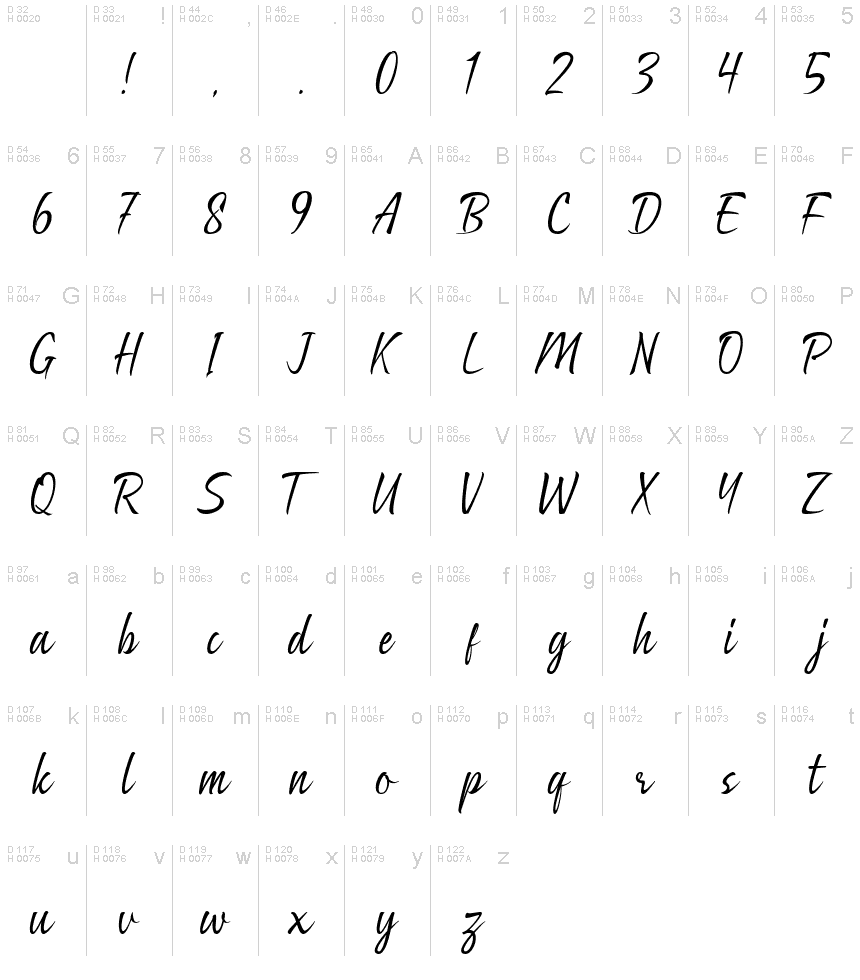
Dalih
Say hello to Dalih, the handwritten semi-light font that's perfect for your creative projects. Designed by Mytype Studio, this semi-condensed typeface exudes elegance and simplicity. The slim letters of Dalih lend themselves well to various design projects - from minimalist invitations and greeting cards to modern website headers and logos. Its subtle curves and smooth lines give it a refined charm that is sure to elevate any project you use it in. Whether you're a calligrapher, designer or just someone who loves beautiful handwriting, Dalih will be a great addition to your font collection!